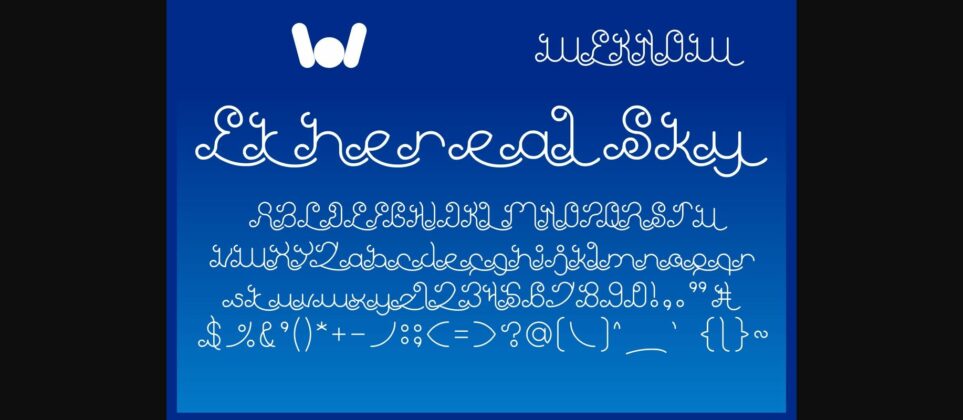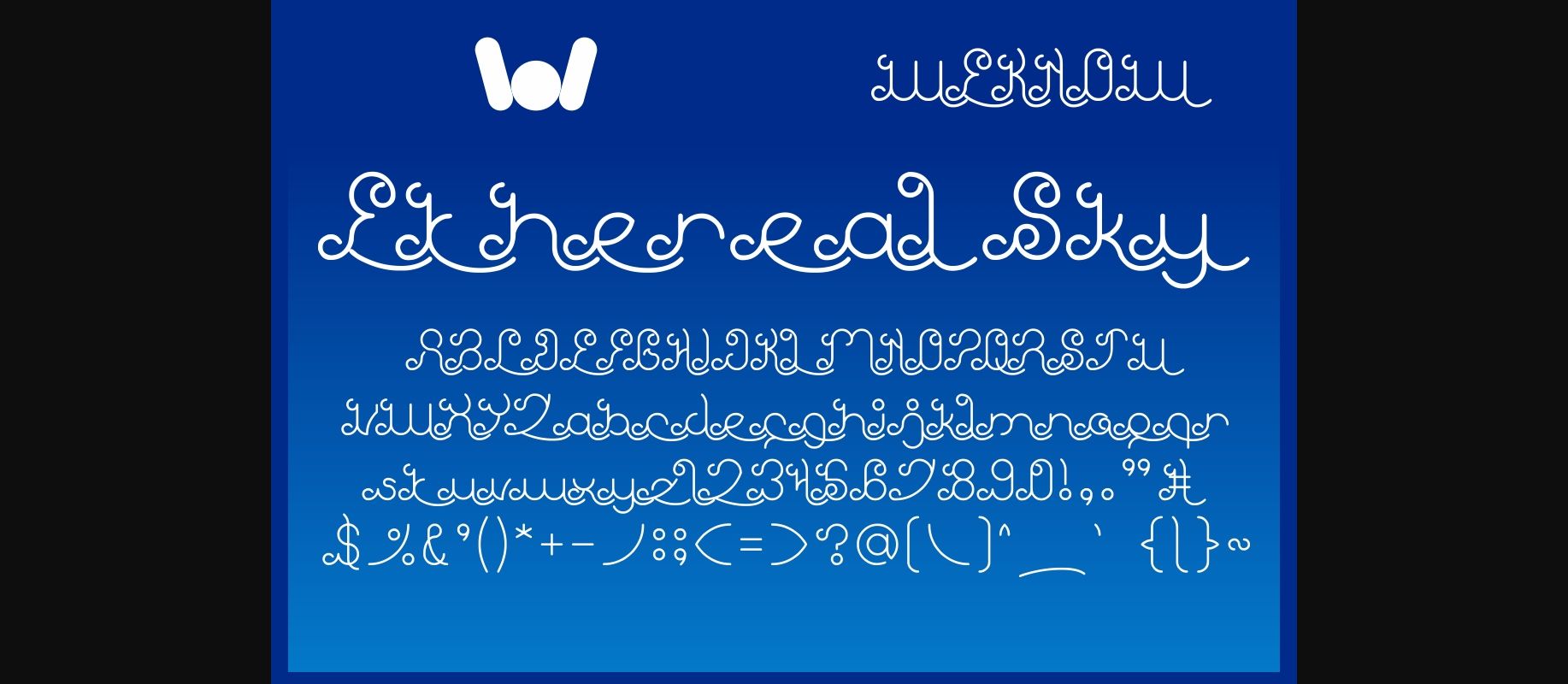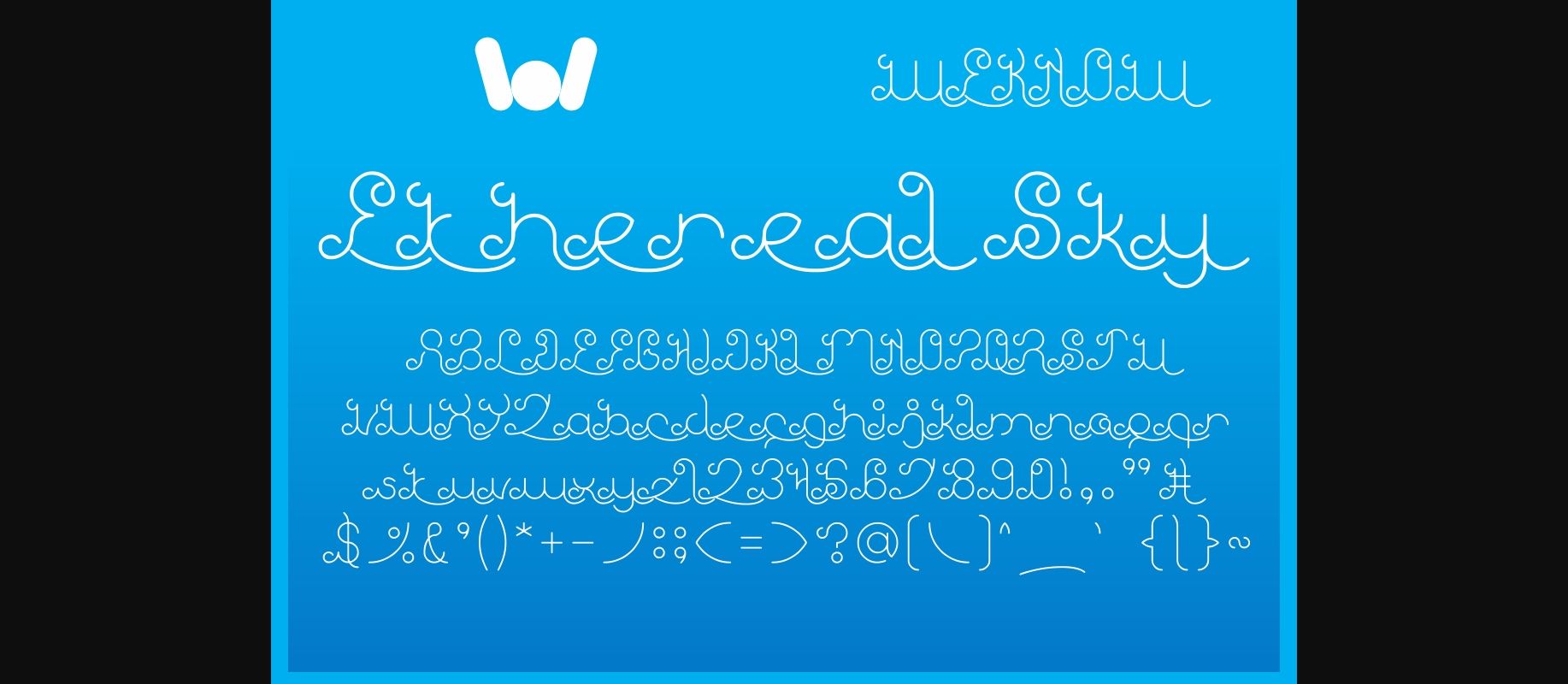
About Ethereal Sky Font
Ethereal Sky is a lovely decorative font. Incredibly unique, this font looks outstanding on a wide variety of designs, so add it to your creative ideas and notice how it makes them come alive!